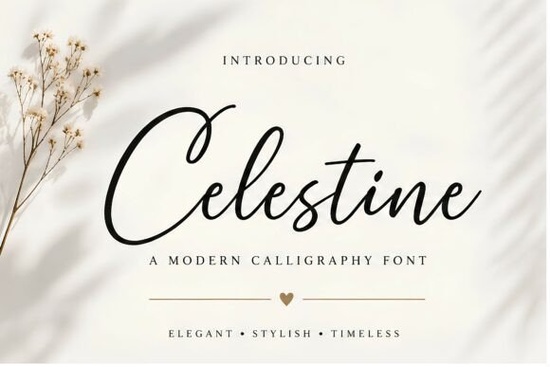
If you're looking for a font that combines elegance and readability, Celestine Font might just be the perfect choice. This modern luxury calligraphy font is designed with flowing strokes and graceful curves, making it ideal for premium branding, wedding invitations, logos, and more.
Why Choose Celestine Font?
Celestine is a versatile script font that offers a timeless balance between beauty and functionality. Its refined signature-style lettering makes it an excellent choice for sophisticated editorial projects, social media content, and packaging. The font's elegant design ensures that your projects will stand out while maintaining a high level of readability.
Perfect for Premium Branding
One of the key strengths of Celestine is its suitability for premium branding. Whether you're designing a logo for a luxury brand or creating a high-end product label, this font adds a touch of class and sophistication. Its clean lines and smooth curves make it easy to read, even at smaller sizes, which is crucial for branding materials.
Ideal for Wedding Invitations
Wedding invitations require a font that can convey both elegance and personalization. Celestine's flowing strokes and graceful curves make it a top choice for creating beautiful and memorable invitations. The font's signature-style lettering adds a personal touch, making each invitation feel unique and special.
Enhance Your Social Media Content
In the age of social media, having visually appealing content is essential. Celestine can help you create stunning graphics and posts that capture attention. Its elegant and readable design makes it perfect for quotes, announcements, and other social media content. You can use it to add a touch of luxury to your Instagram stories, Facebook posts, and more.
Use in Packaging and Editorial Projects
For designers working on packaging or editorial projects, Celestine offers a blend of style and clarity. Whether you're designing a book cover, magazine layout, or product packaging, this font can help you achieve a polished and professional look. Its versatility means it can be used in a wide range of design contexts without compromising on quality.
Comparing Celestine with Other Script Fonts
When choosing a script font, it's important to consider how it compares to other options. Here are a few similar fonts and how they stack up:
- Royal Wedding Font: If you're looking for a more traditional and ornate style, Royal Wedding Font might be a good alternative. It has a more elaborate and decorative design, which can be perfect for formal events.
- Alexia Bright Font: For a slightly more casual and playful feel, Alexia Bright Font is a great option. It has a bouncy and lively character, making it suitable for more relaxed and fun designs.
- Perfect Signature Font: If you need a font that mimics a handwritten signature, Perfect Signature Font is a strong contender. It has a more natural and authentic look, ideal for personal and intimate projects.
- Asking for a Friend Font: For a more whimsical and quirky style, Asking for a Friend Font can be a fun choice. It has a unique and playful design, making it stand out in creative and unconventional projects.
Where to Use Celestine Font
Here are some specific use cases where Celestine can shine:
- Logos and Branding: Create a luxurious and professional look for your brand with Celestine.
- Wedding Invitations and Stationery: Add a touch of elegance and personalization to your wedding stationery.
- Social Media Graphics: Enhance your social media posts with a stylish and readable font.
- Packaging Design: Use Celestine to create eye-catching and sophisticated product packaging.
- Editorial Projects: Add a refined and polished look to your book covers, magazine layouts, and more.
Final Thoughts
Celestine Font is a fantastic choice for anyone looking to add a touch of elegance and sophistication to their design projects. Its combination of flowing strokes, graceful curves, and refined signature-style lettering makes it a versatile and reliable option for a wide range of applications. Whether you're a designer, crafter, print-on-demand seller, or small business owner, Celestine can help you create stunning and professional-looking designs.
Practical Checklist for Using Celestine Font
- Choose the Right Context: Determine where Celestine will fit best in your project, whether it's for branding, wedding invitations, or social media content.
- Test Readability: Ensure that the font remains readable at various sizes, especially for smaller text like fine print or labels.
- Combine with Complementary Fonts: Consider pairing Celestine with a simple sans-serif or serif font to create a balanced and harmonious design.
- Experiment with Styles: Try different styles and weights of Celestine to see which one works best for your project.
- Get Feedback: Share your designs with others to get feedback and make any necessary adjustments.